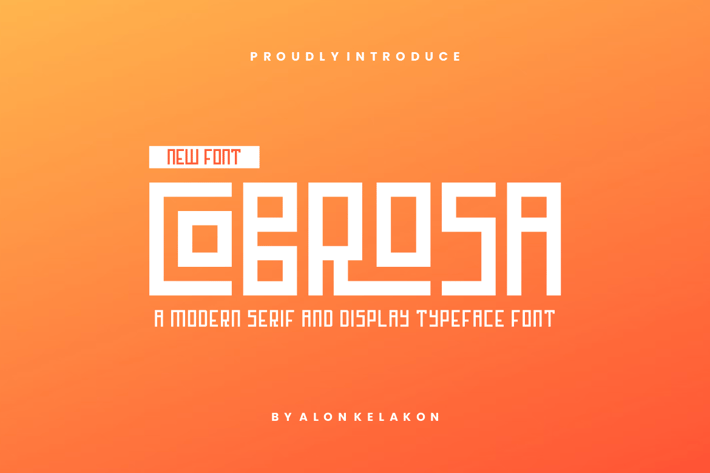
Cobrosa Modern Serif & Display Font
Cobrosa Modern Serif & Display Font Font is unique . Ready to use for your design like labeling, movie sceen, poster, movie title, gigs, album covers, logos, and much more.